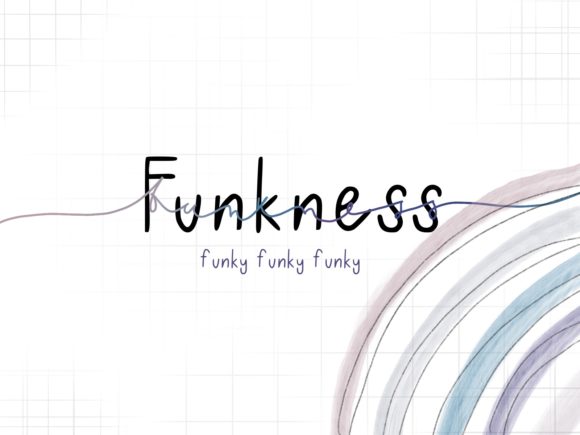
Journey into the world of typography and be captivated by Funkness Font, a work of art that exudes elegance and sophistication. This modern script font, crafted with a light weight, carries a charismatic personality that effortlessly elevates your designs. Dive into a realm of creativity and immerse yourself in the allure of Funkness.
Experience the charm of Funkness, a script font that dances across the page with grace and fluidity. Its delicate strokes and playful curves add a touch of whimsy to your projects, making them stand out from the ordinary. Discover endless possibilities as you explore the versatility of Funkness, a font that effortlessly adapts to a wide range of design styles.
Unleash your imagination and let Funkness take your designs to new heights. Create stunning logos that capture attention, craft captivating social media posts that engage your audience, and design eye-catching marketing materials that leave a lasting impression. The possibilities are limitless with Funkness, a font that empowers you to express your creativity and leave an indelible mark.
With Funkness, you'll embark on a typographic adventure like no other. Whether you're a seasoned designer or just starting out, this font will ignite your passion for creativity and open up a world of endless possibilities. Embrace the Funkness experience and let your designs flourish with elegance and charm.